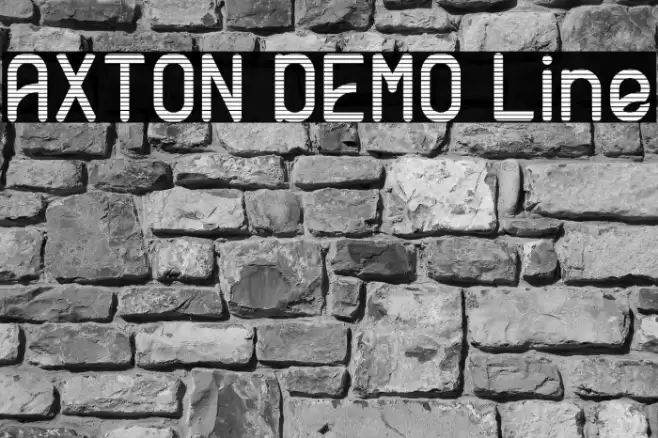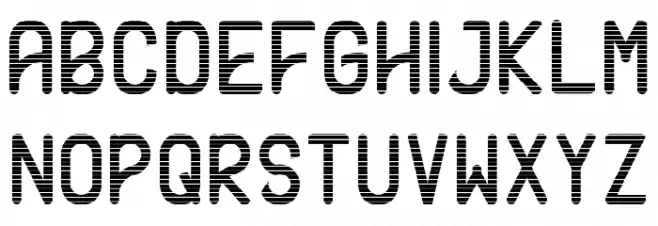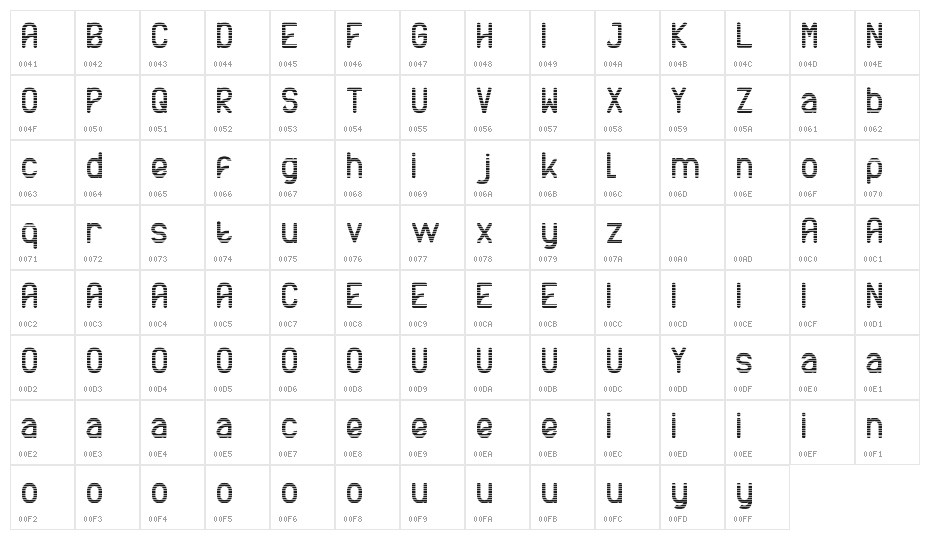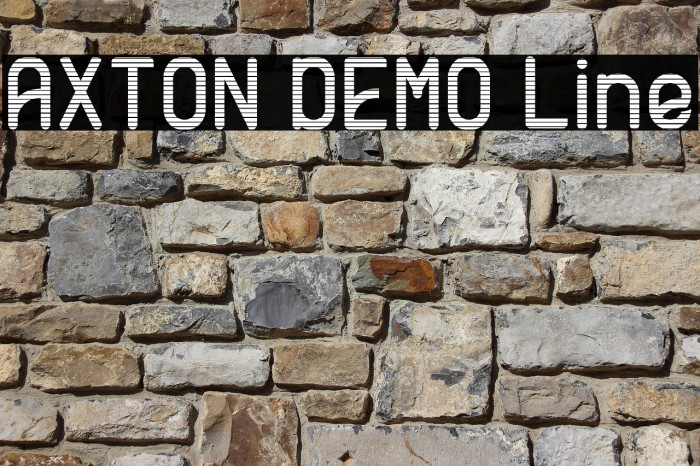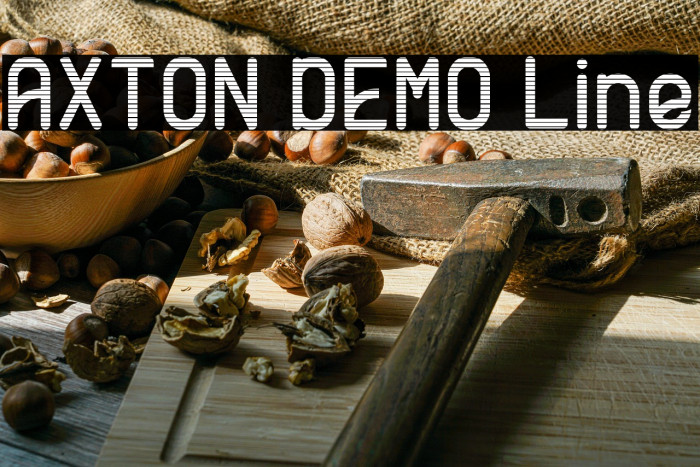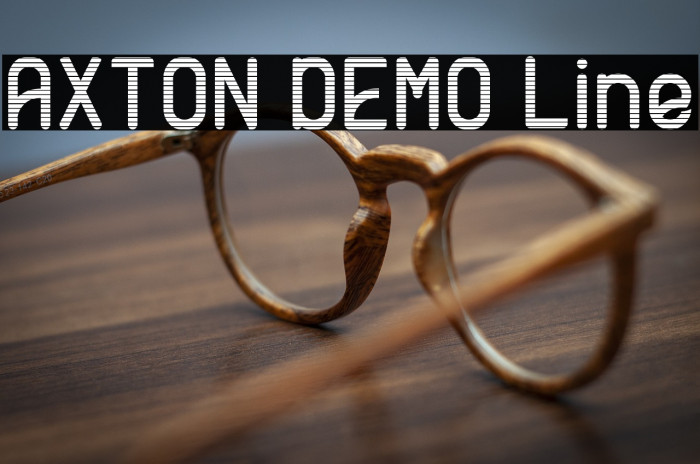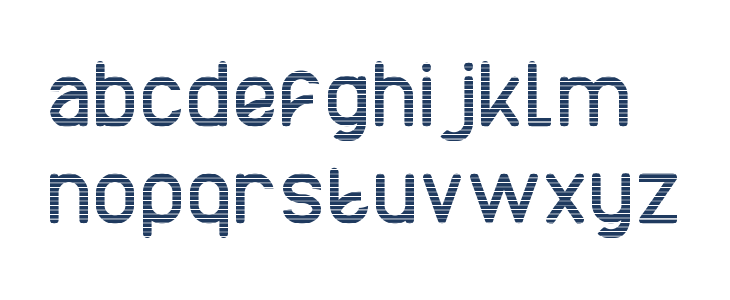
AXTON DEMO Line Font
AXTON DEMO Line Description
This font features a unique design characterized by horizontal lines running through each character, creating a striped effect. The letters are bold and geometric, with a modern and futuristic appearance. The uppercase and lowercase letters maintain a consistent style, with rounded edges and uniform line spacing. The numbers and special characters follow the same design principles, ensuring a cohesive look across all elements. This font's distinct style makes it stand out, offering a visually striking option for various design projects.
A bold, striped font with a modern, geometric style from Regular fonts.
- Proposed Projects: Ideal for branding, posters, and digital media where a modern and eye-catching design is desired.